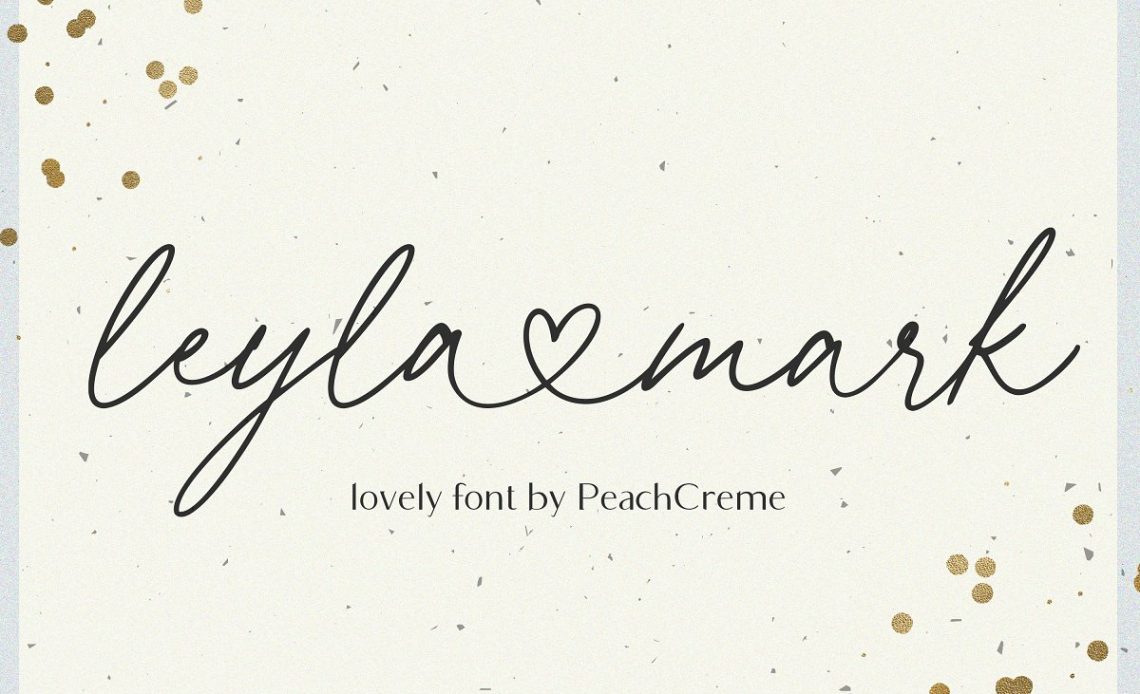
Introducing Leyla Mark, a sunny and lovely handwritten calligraphy font that is sure to captivate your heart. Created by PeachCreme, this font is an absolute gem for anyone looking to add a touch of elegance and charm to their projects.
Are you planning a dreamy wedding? Leyla Mark is the perfect font for your wedding invites and cards. Its delicate and graceful strokes will bring a romantic and timeless feel to your special day. Imagine your guests' faces lighting up as they receive beautifully crafted envelopes adorned with this enchanting font.
But Leyla Mark is not just limited to weddings. Its versatility extends beyond the realm of romance. Whether you're designing a logo, creating branding materials, or crafting heartfelt messages, Leyla Mark will lend an air of sophistication and authenticity to your work.
What sets Leyla Mark apart is its extensive character set. With a full range of uppercase and lowercase letters, multilingual symbols, numerals, punctuation, and ligatures, you have all the tools you need to bring your creative vision to life. And for that extra touch of sweetness, Leyla Mark includes connecting lowercase letters that end with a charming heart.
So whether you're a professional designer or a DIY enthusiast, Leyla Mark is your ticket to creating stunning and captivating designs. Let its sunny and lovely nature infuse your projects with warmth and beauty. Don't miss out on this opportunity to elevate your creations and leave a lasting impression.